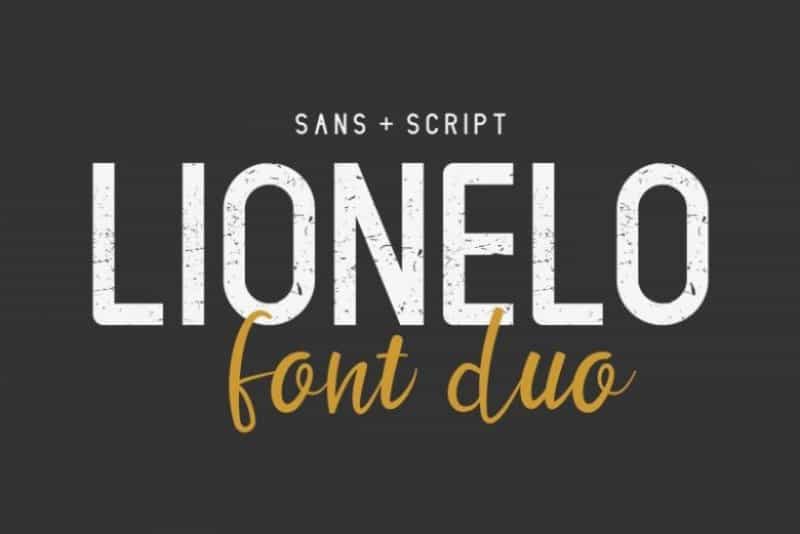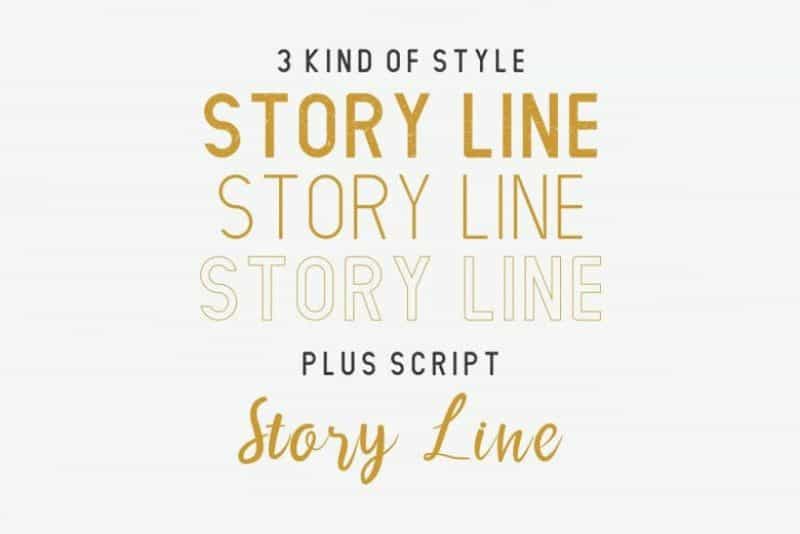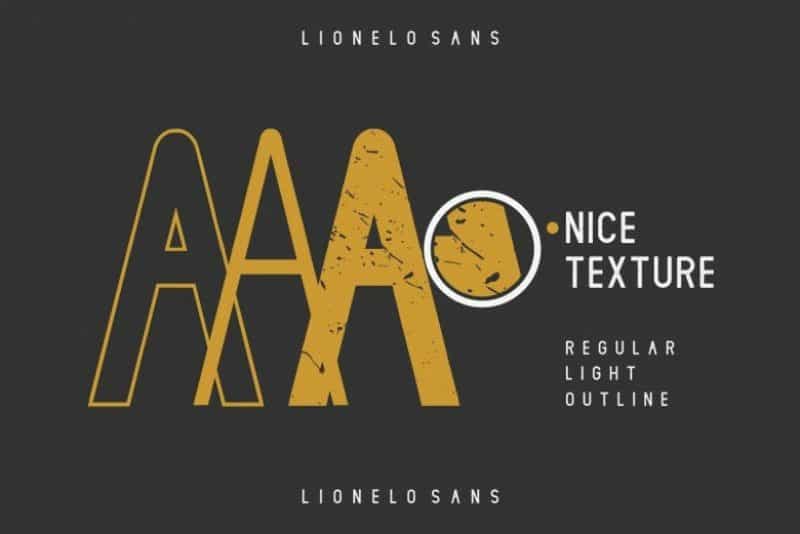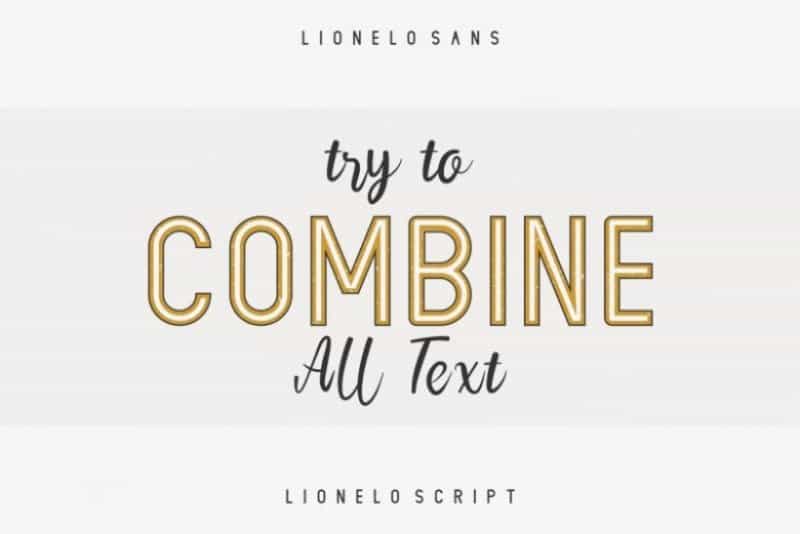
Discover LIONELLO Special Font, part of the Sans Serif Handwritten collection—a versatile and unique font perfect for adding a personal touch to your projects. Download it for free and enjoy crafting designs with style, from invitations to social media posts. This font is available exclusively for personal use, giving you the freedom to create without limits. Unlock your creativity with LIONELLO Special Font today!
This is a vintage and stylish script handwriting font. It has unique, elegant, classic and a stylish glyph.. Will be awesome for almost any project. Great for branding, logo, stationery, business card, signage, flyer, brochure, invitation, wedding, promo, ads etc.. there are many industries that is suit with this font, wedding, cafe, music, restaurant, consultant, real estate, law firm, etc.